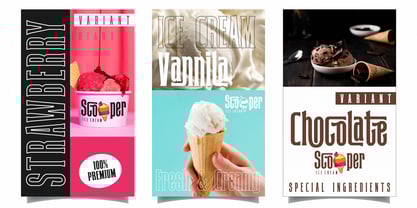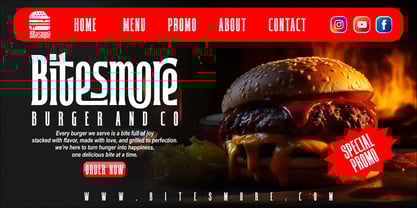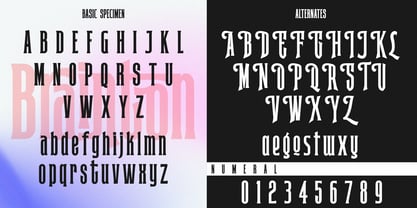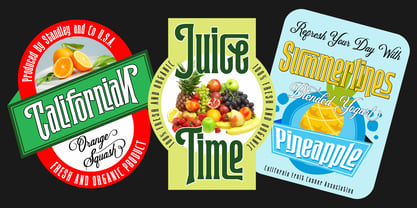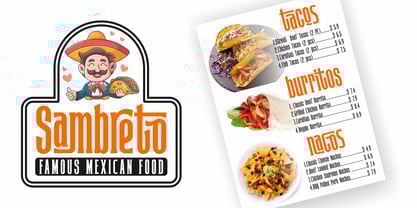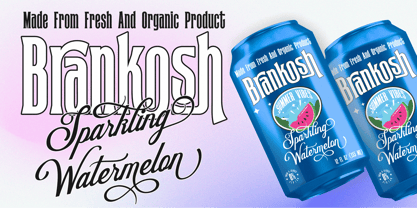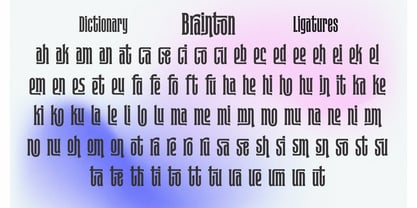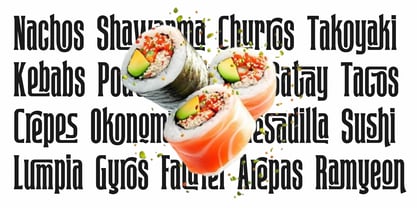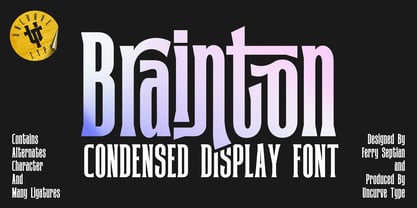
Brainton
by Uncurve
The Brainton Font Family was designed by Ferry Septian and published by Uncurve. Brainton contains 1 styles. More about this family
Brainton – Modern Condensed Display Font
Brainton is a bold and stylish modern condensed display font designed to make a strong visual impact. With a unique combination of alternates and creative lowercase ligatures, Brainton brings dynamic rhythm and personality to any design. Just play with the ligatures, and you'll unlock endless possibilities for eye-catching layouts.
Perfect for both modern and retro-inspired projects, Brainton is ideal for logos, posters, headlines, branding, book covers, apparel, product packaging, websites, social media posts, brochures, food posters, sports events, and more.
Whether you're crafting a clean minimalist design or something more expressive and bold, Brainton adapts effortlessly—making it a versatile go-to font for any creative project.
Designers: Ferry Septian
Foundry: Uncurve